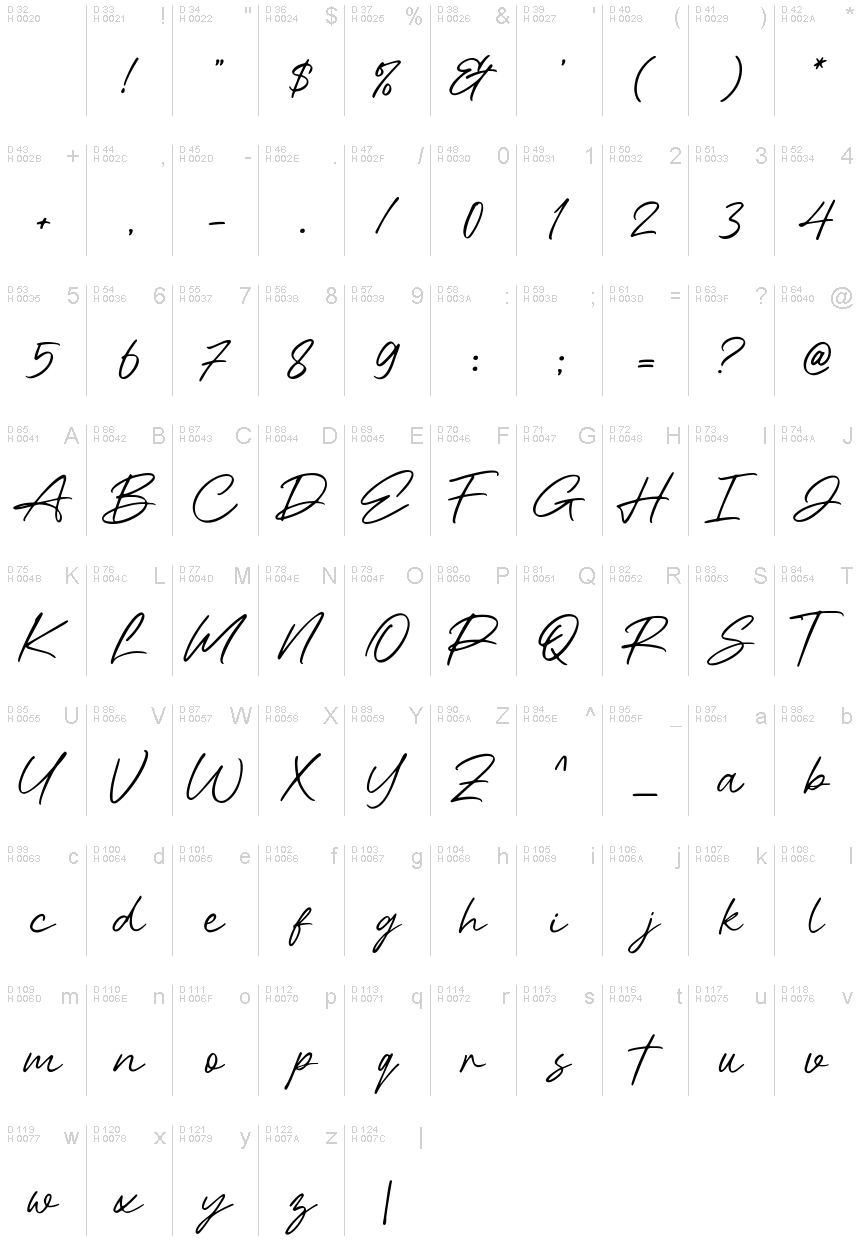
Ballite
Ballite, designed by Khurasan, is a captivating handwritten font that exudes elegance and charm. Its fluid strokes and graceful curves evoke a sense of personalization and warmth, making it perfect for adding a touch of sophistication to any project. The unique character of Ballite shines in its playful loops and flowing lines, creating an inviting aesthetic that's both stylish and approachable.
Ideal for wedding invitations, personal branding, or boutique logos, Ballite's distinctive style adds an element of bespoke artistry to your designs. Whether you're aiming for a whimsical feel or an elegant finish, this font effortlessly adapts to elevate your creative concepts with its handcrafted allure.